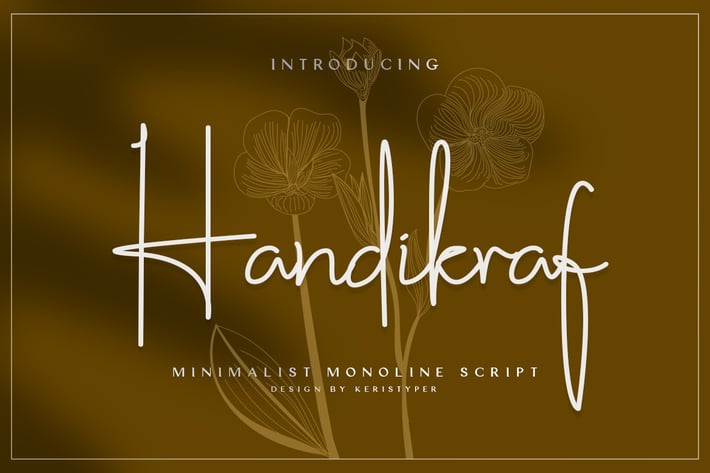
Handikraf Signature Script Font
Handikraf Signature Script Font is charming and elegant Typeface. Created with an authentic, handwritten feel. It looks stunning on wedding invitations, thank you cards, quotes, greeting cards, logos, business cards and every other design which needs a handwritten touch.
Handikraf Signature Script Font multilingual support:
Afrikaans, Albanian, Catalan, Danish, Dutch, English, Estonian, French, Finnish, German, Icelandic, Indonesian, Italian, Malay, Norwegian, Portuguese, Spanish, Swedish, Zulu, and many more.